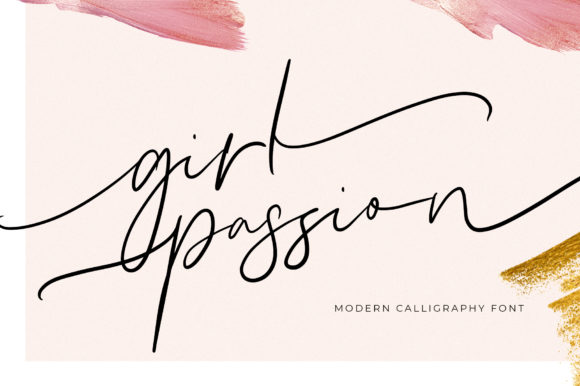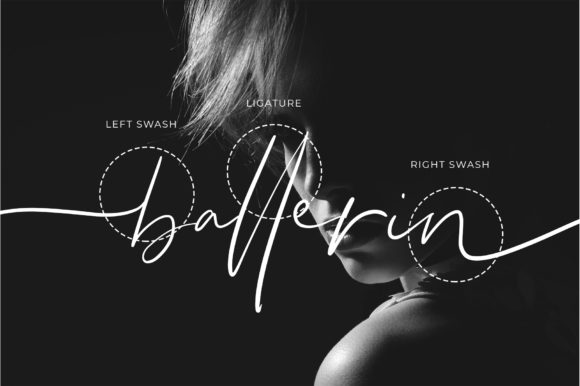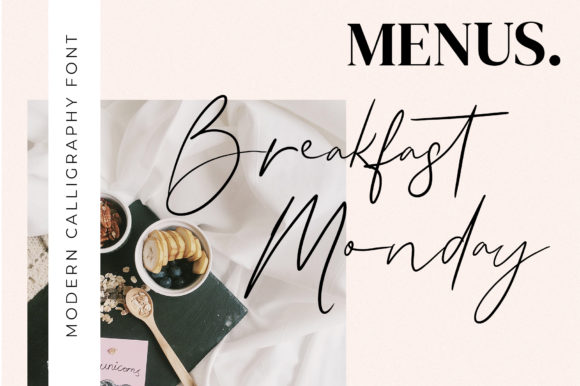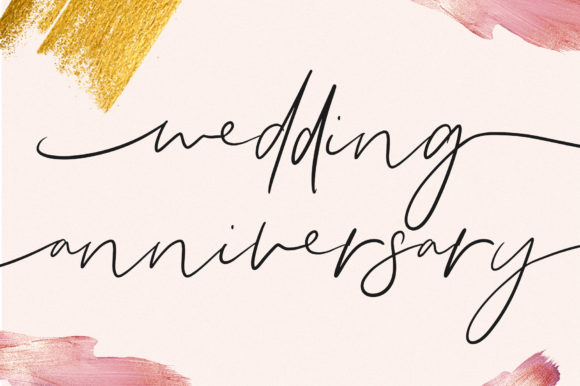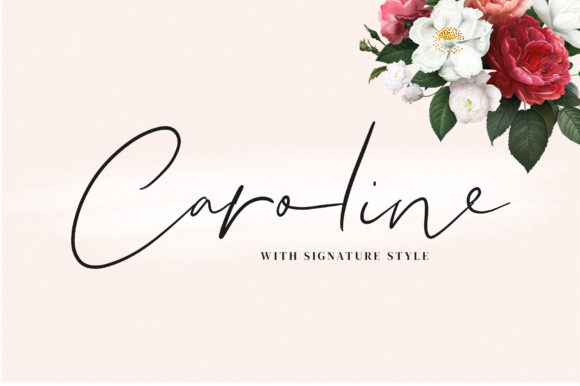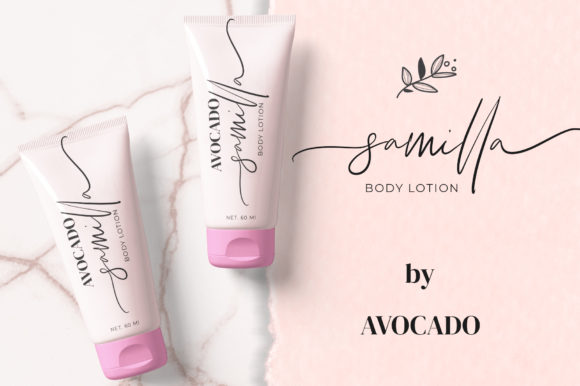
HomeScript FontsGirl Passion Font Script Fonts Girl Passion Font FacebookXPinterestWhatsApp Girl Passion Font Poster 2 Girl Passion Font Poster 3 Girl Passion Font Poster 4 Girl Passion Font Poster 5 Girl Passion Font Poster 6 Girl Passion Font Poster 7 About Girl Passion Font Girl Passion is a beautiful script that pays homage to classic calligraphy. DOWNLOAD NOW People also explored Madonia Font Pencil Boho Font Bundle Font Danger Font Summer Carnival Font Mindfulness Font Psyche Ward Font Night Marie Font Royalina Font 280 0 TagsGirl Passion Font Previous articleEpic Christmas FontNext articleMargareta Font LEAVE A REPLY Cancel reply Comment: Please enter your comment! Name:* Please enter your name here Email:* You have entered an incorrect email address! Please enter your email address here Website: Save my name, email, and website in this browser for the next time I comment. Personal Use Free Mandarins Personal Use Free Read more about this font Aldenburg Personal Use Free Read more about this font Lion Teen Personal Use Free Read more about this font Messages Personal Use Free Read more about this font BLOG Top 7 Google Fonts Alternatives for Faster and Privacy-Friendly Web Design (2025) Top 7 Google Fonts Alternatives for Faster and Privacy-Friendly Web Design (2025) When it comes to web typography, Google Fonts has long been the go-to... How to Install and Use Fonts on Windows, macOS, and Web Projects Free vs Paid Fonts: Why Investing in Premium Fonts Is Worth It Best Fonts for YouTube Videos: Make Your Thumbnails Stand Out